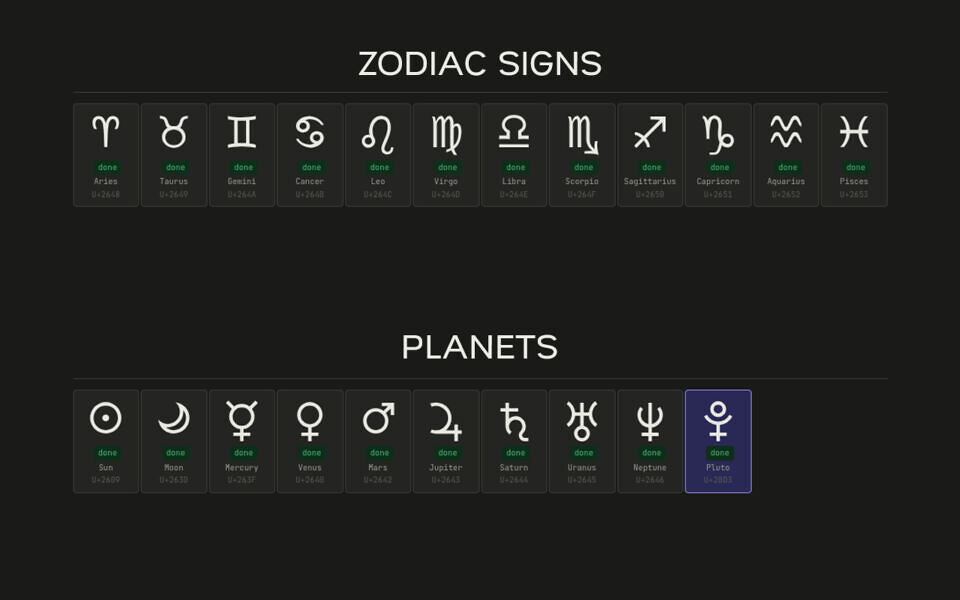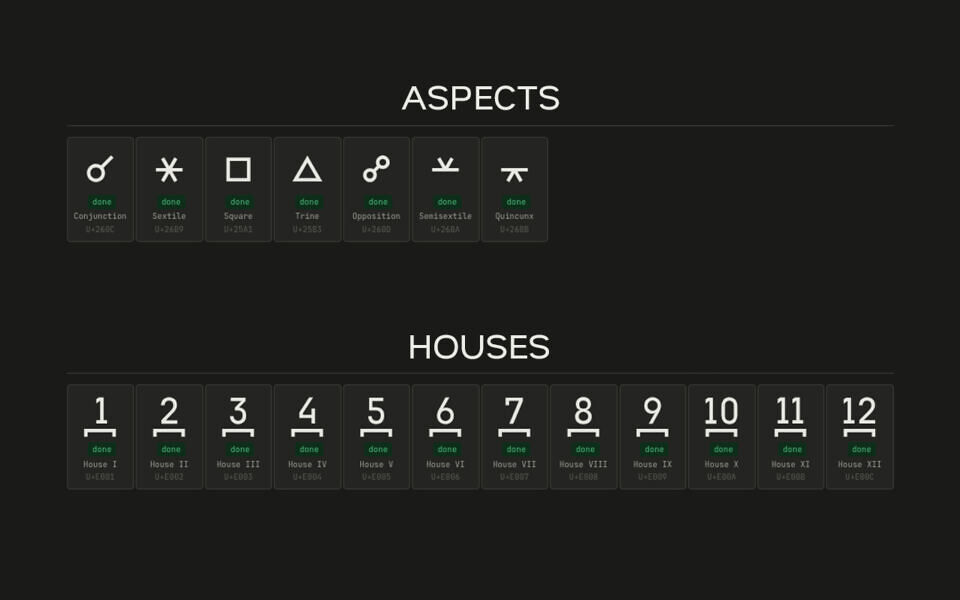
AstroPan Mono is a specialized icon font for astrological interfaces. It is designed for maximum clarity at small sizes (from 10px) while strictly adhering to a monospaced grid.
The set includes 44 symbols:
- Zodiac (12): Standard Unicode positions
- Planets (10): The main septener + outer planets
- Aspects (7): Major and minor aspects (0°, 30°, 60°, 90°, 120°, 150°, 180°)
- Houses (12): Located in the PUA area (U+E001–U+E00C)
- Icons (3): ‘Anticlockwise’, ‘Crystal Ball’, ‘Eye’